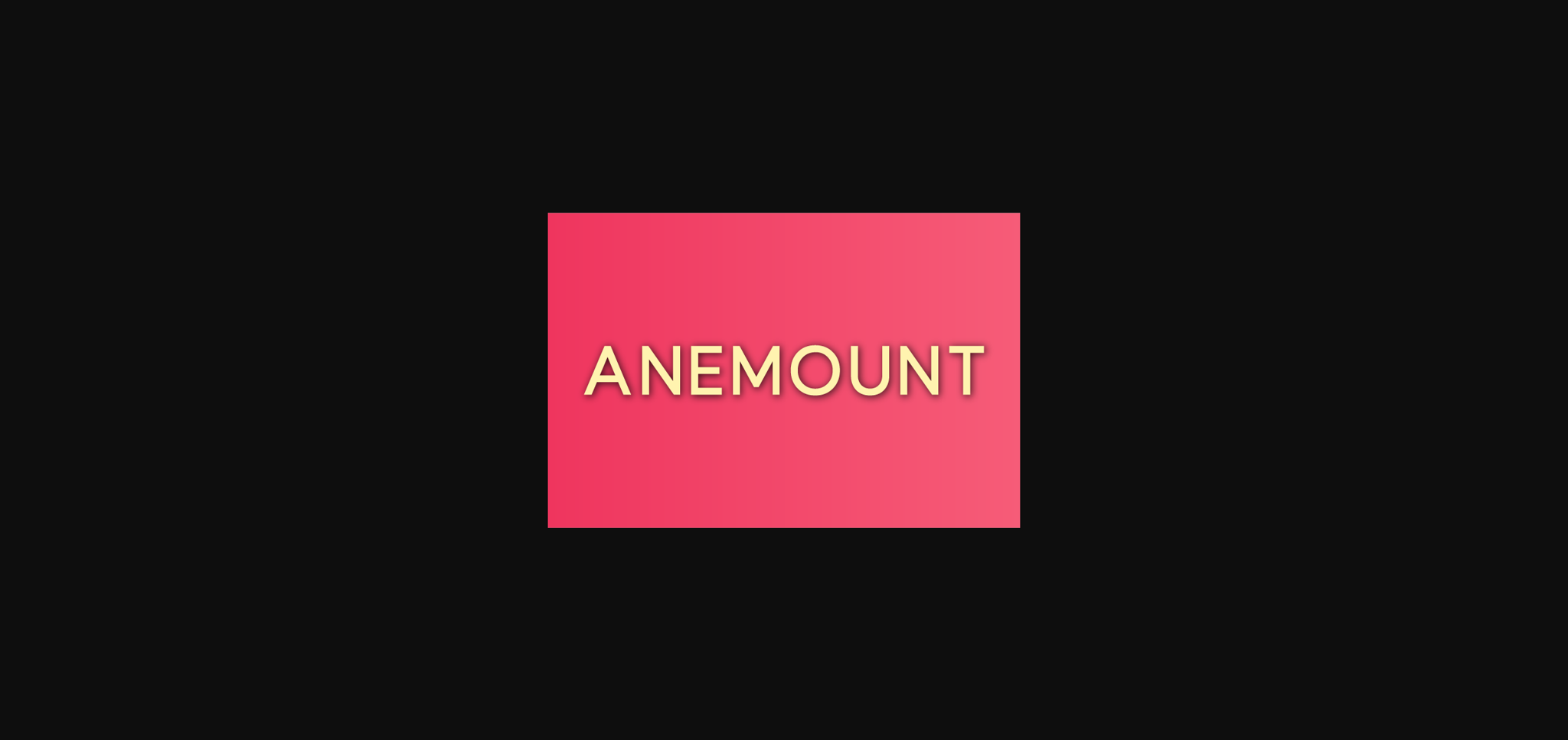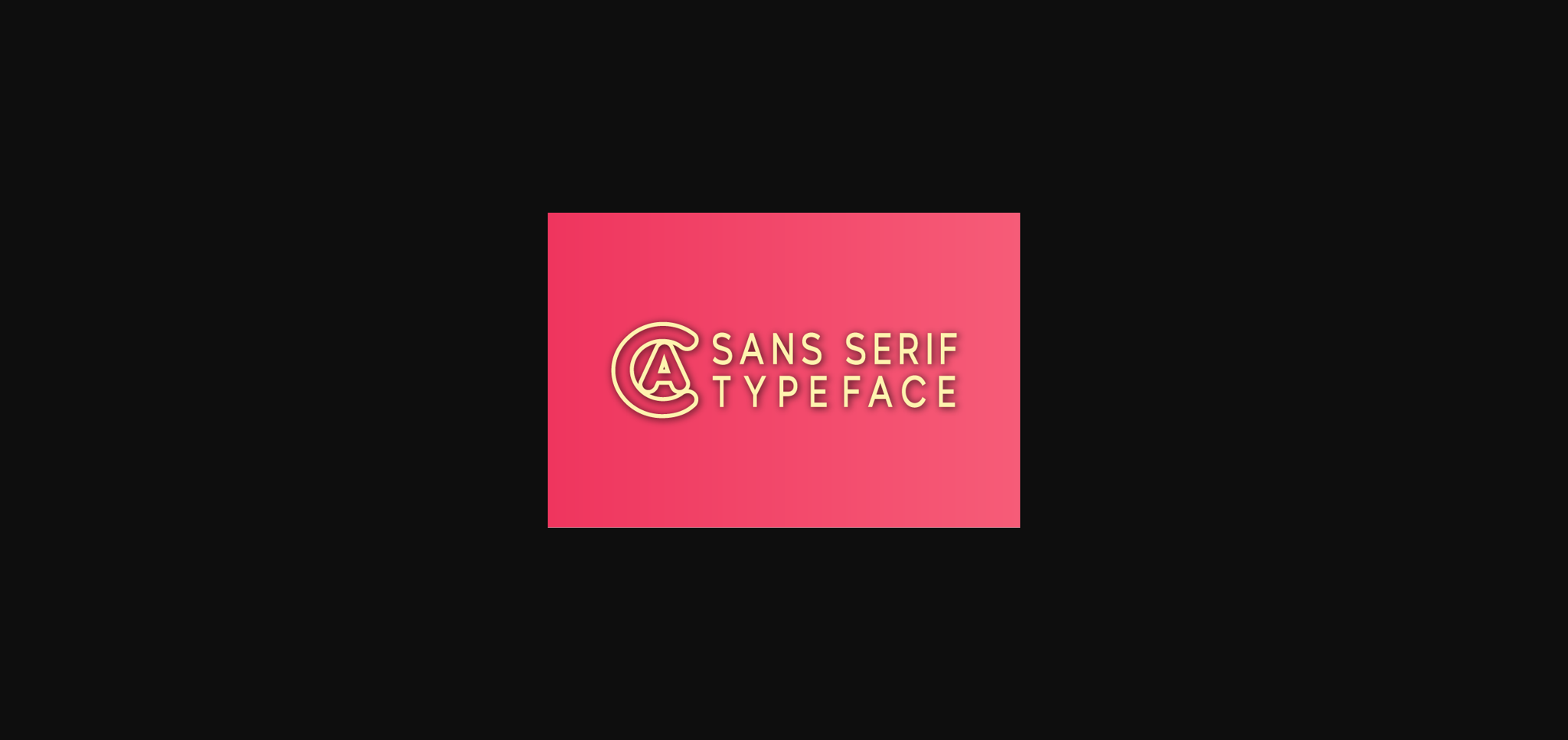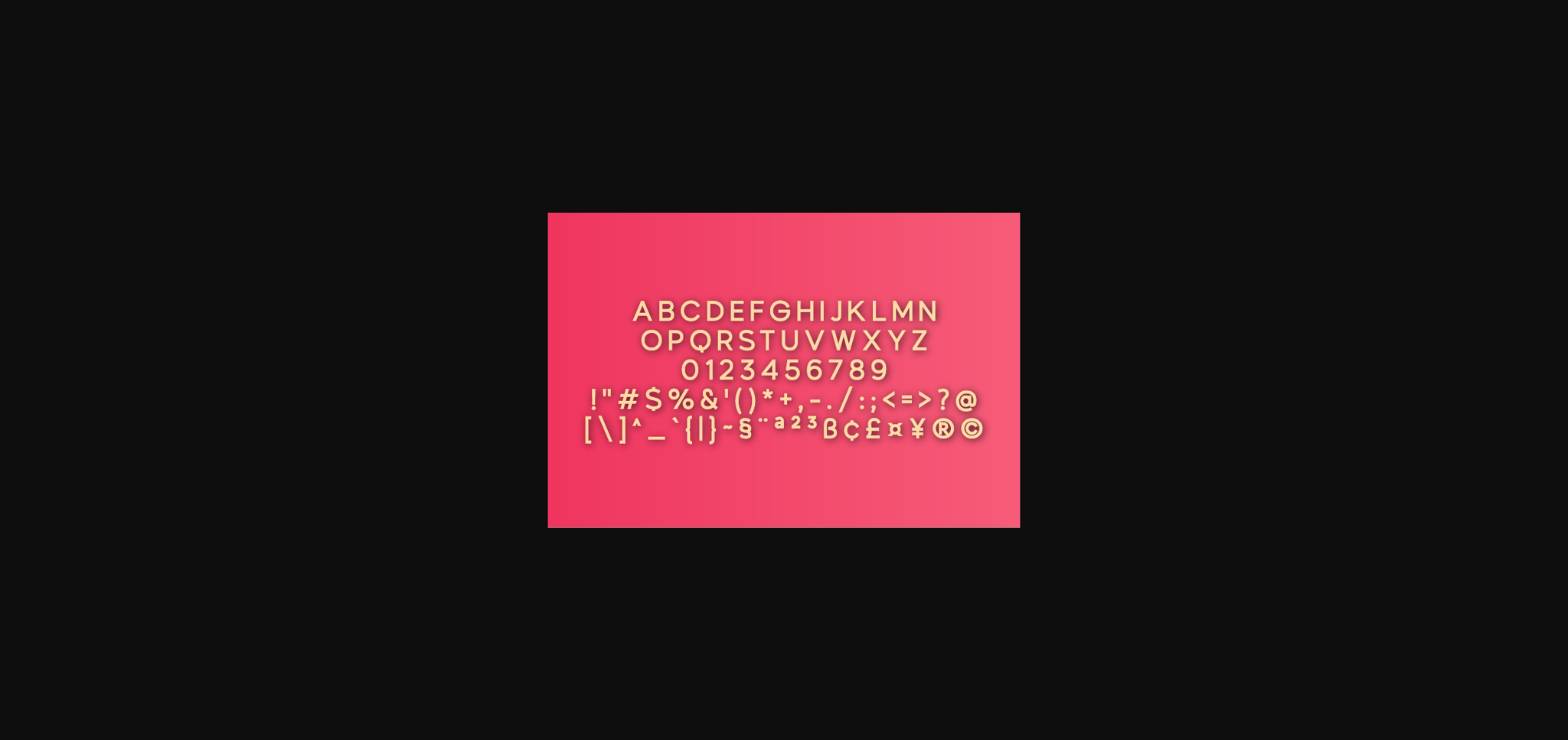
HomeSans Serif FontsAnemount Font Sans Serif Fonts Anemount Font FacebookXPinterestWhatsApp 1 of 5 ... Anemount Font Poster 2... Anemount Font Poster 3... Anemount Font Poster 4... Anemount Font Poster 5... About Anemount Font Anemount is a minimal and neat sans serif font. It can easily be matched to an incredibly large set of projects, so add it to your creative ideas and notice how it makes them stand out! DOWNLOAD NOW People also explored Robotwar Font YWFT Thinaire Stella Font Futuristic Font Blandes Font Cow Font Rolanttic Font Cantilena Font Ganieo Font 407 0 TagsAnemount Font Previous articleChutecasual FontNext articleDeerliona Font LEAVE A REPLY Cancel reply Comment: Please enter your comment! Name:* Please enter your name here Email:* You have entered an incorrect email address! Please enter your email address here Website: Save my name, email, and website in this browser for the next time I comment. Personal Use Free Sea Gardens Personal Use Free Read more about this font Hubbies Personal Use Free Read more about this font Remember Personal Use Free Read more about this font Wintersoul Personal Use Free Read more about this font BLOG 5 Fonts That Will Dominate Design Trends in 2026 5 Fonts for 2026 That Will Dominate Design Trends Typography plays a critical role in visual communication, and as we look ahead to 2026, it’s... To increase your work productivity, choose the most readable fonts. Best Fonts for YouTube Videos: Make Your Thumbnails Stand Out Elegant Wedding Invitation Fonts – Handwritten & Script Fonts